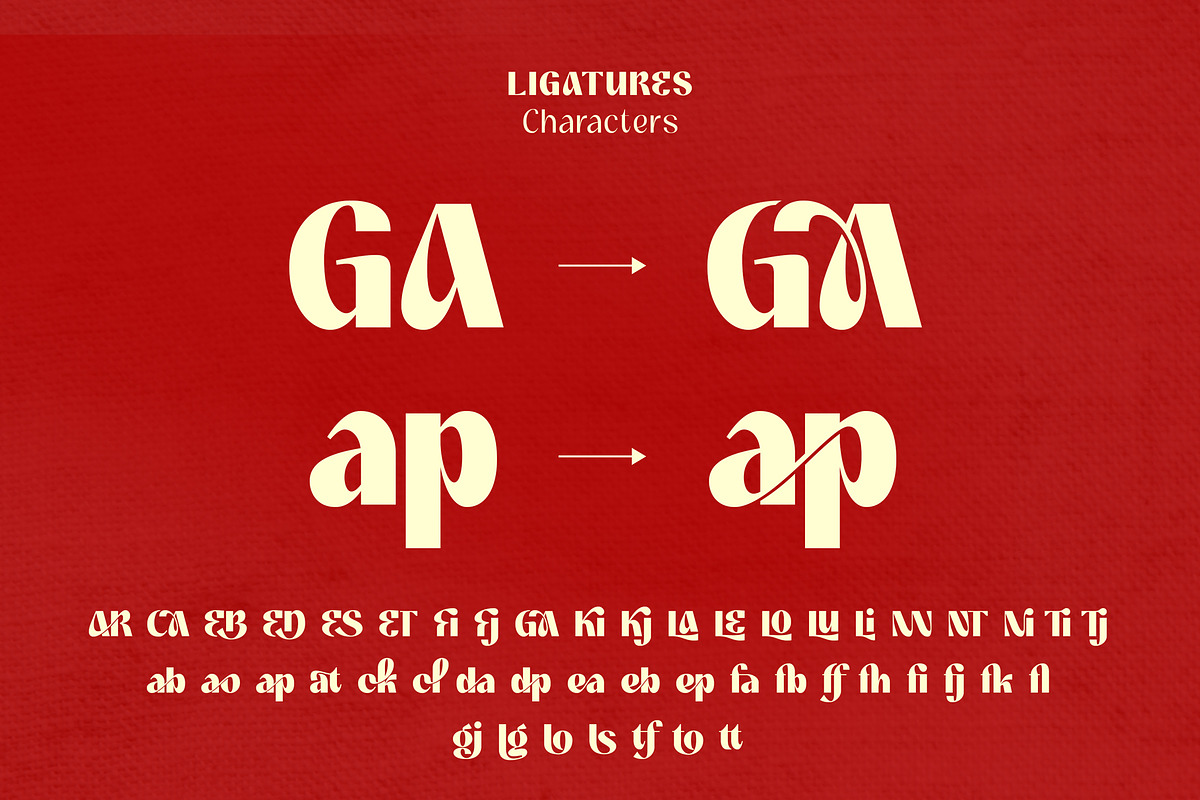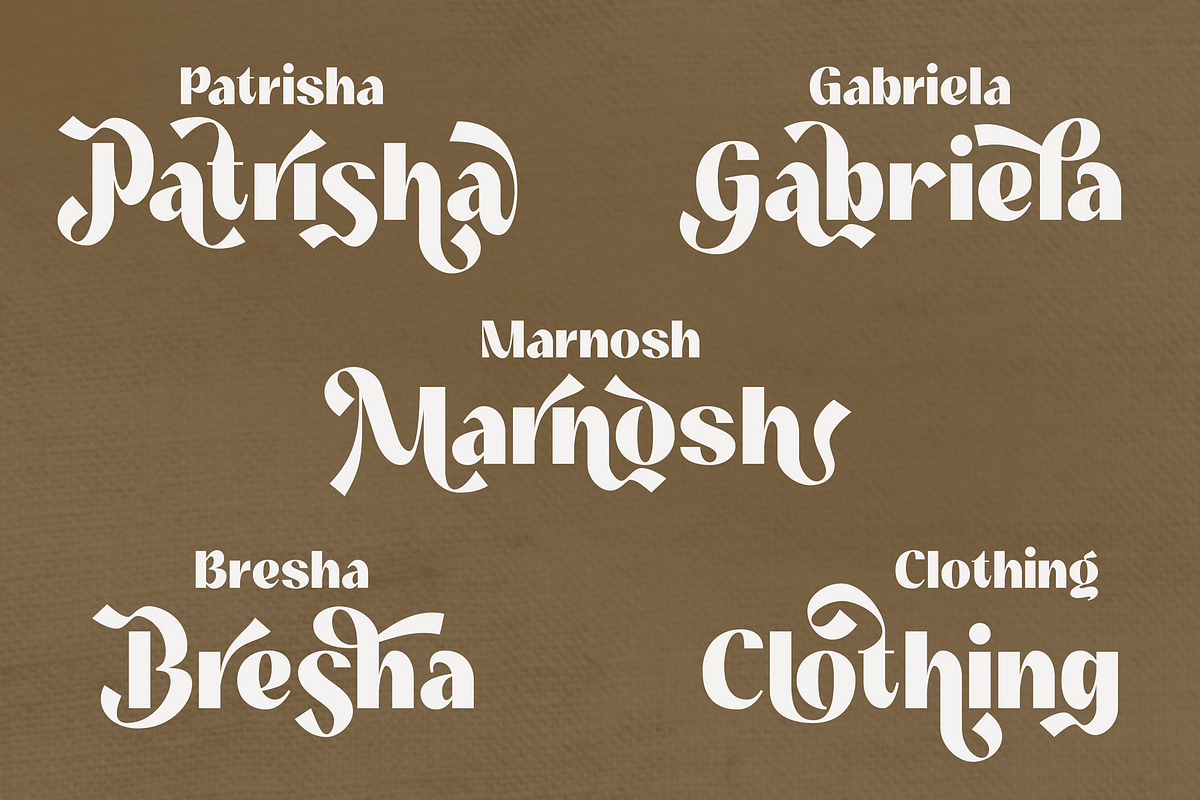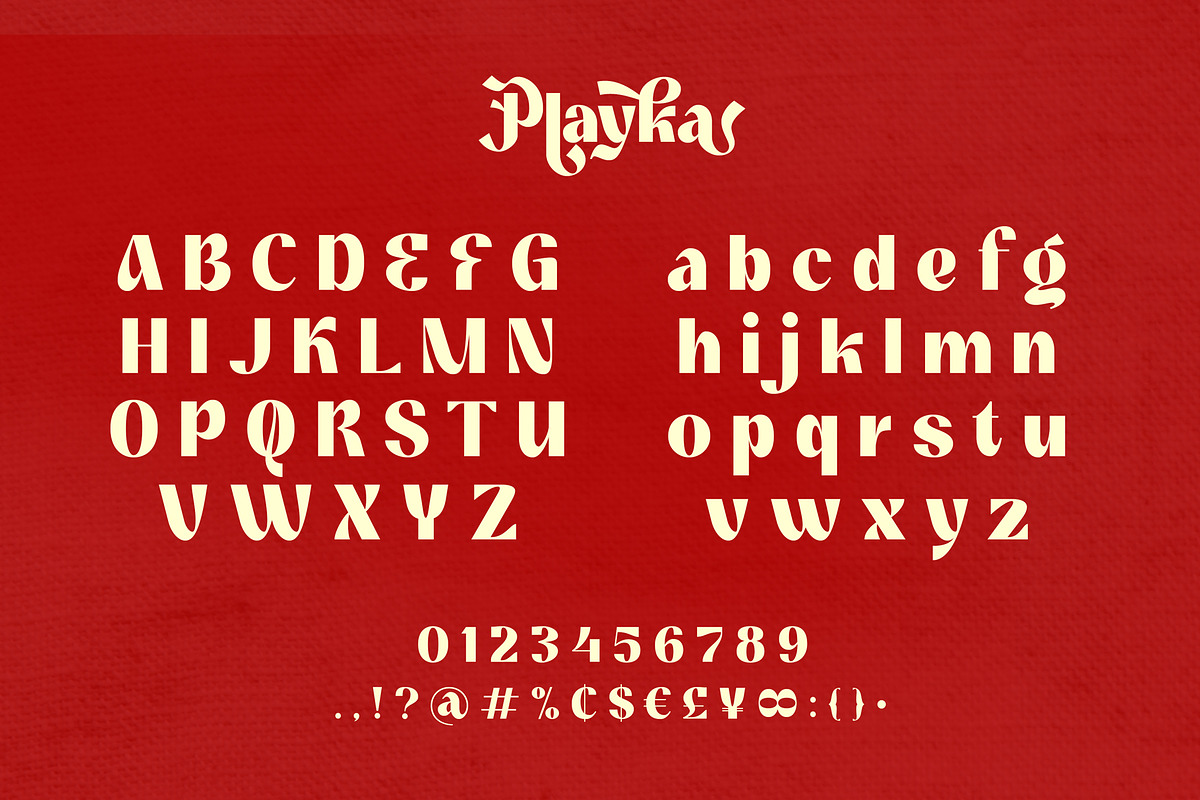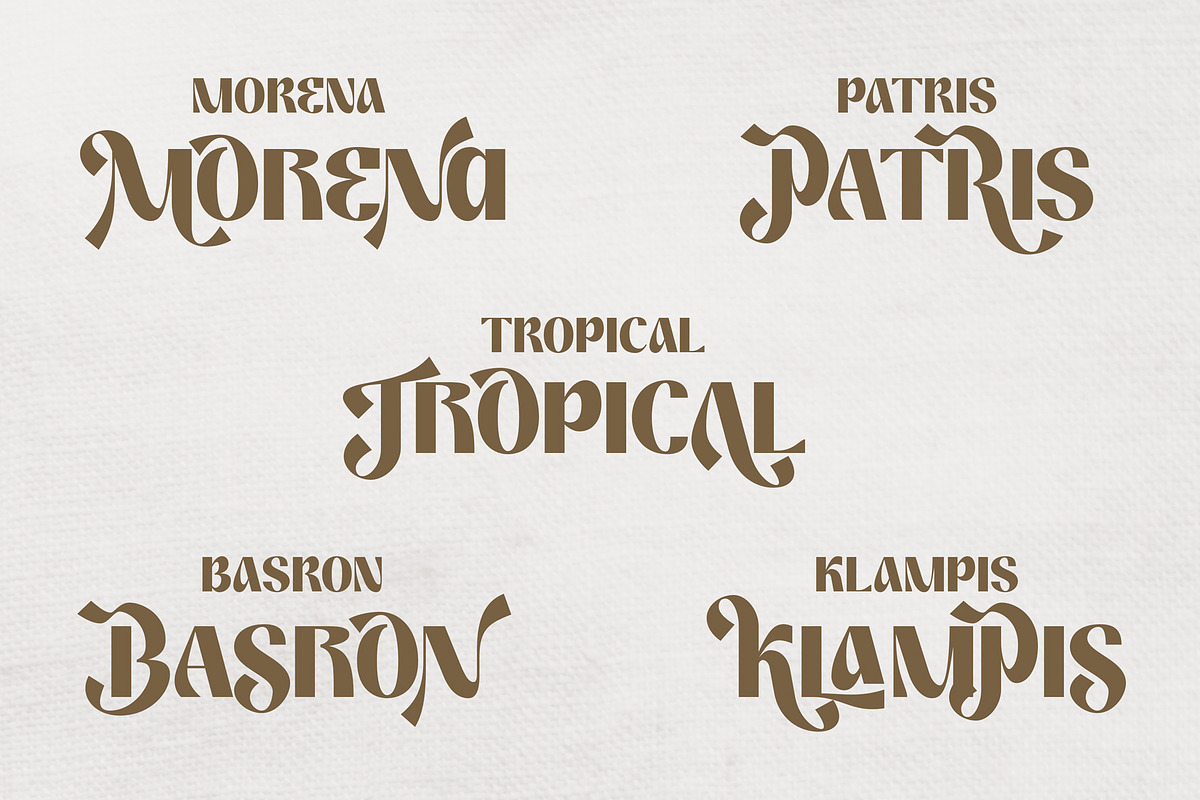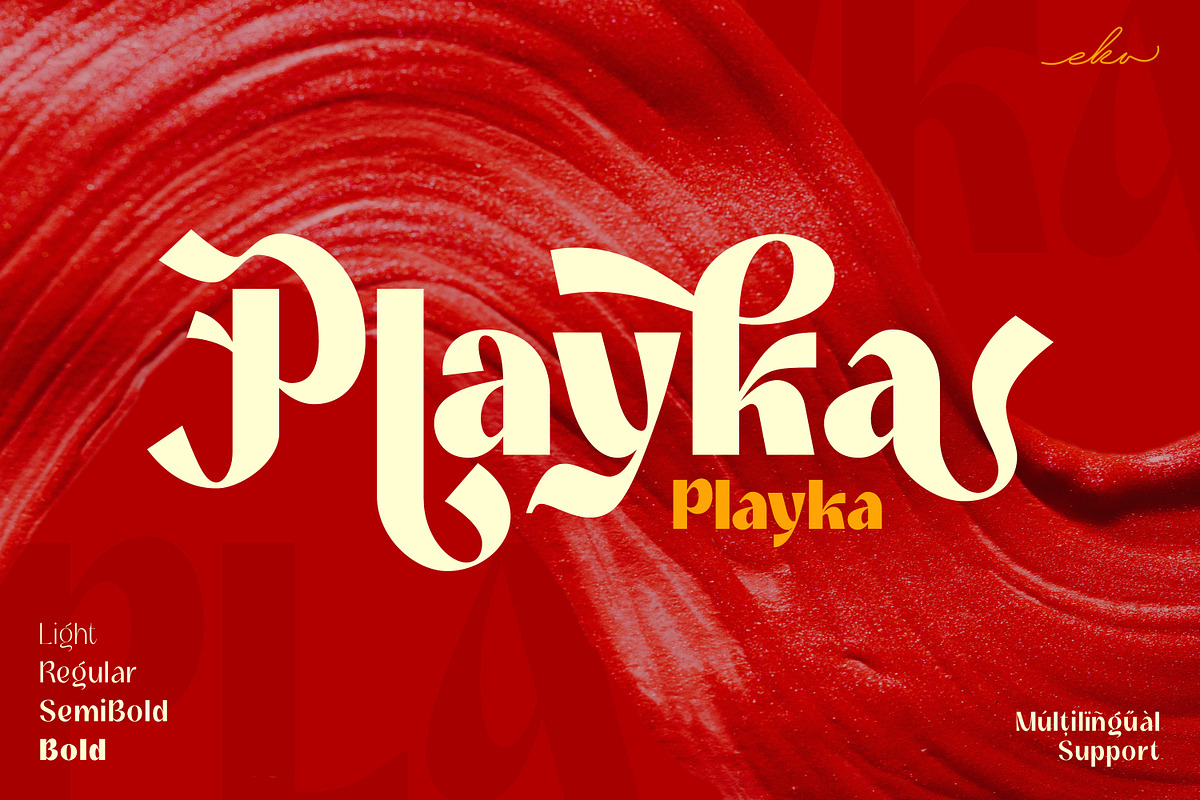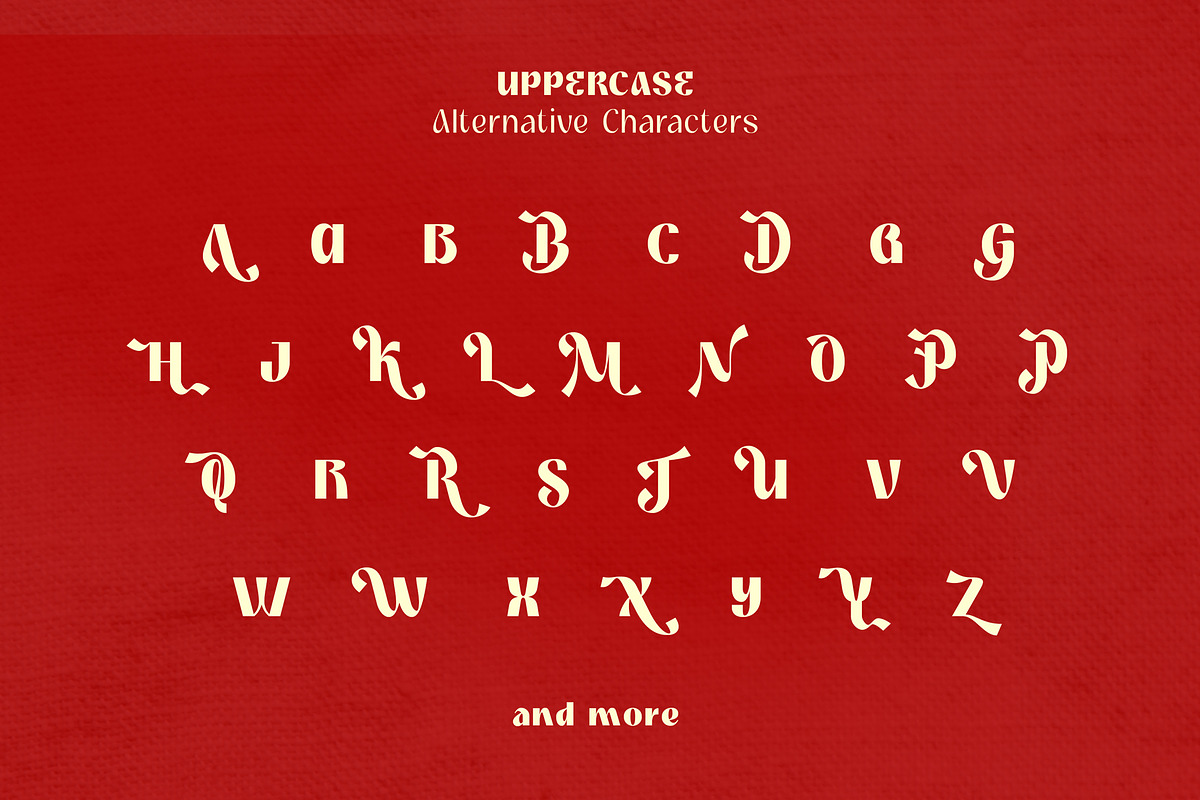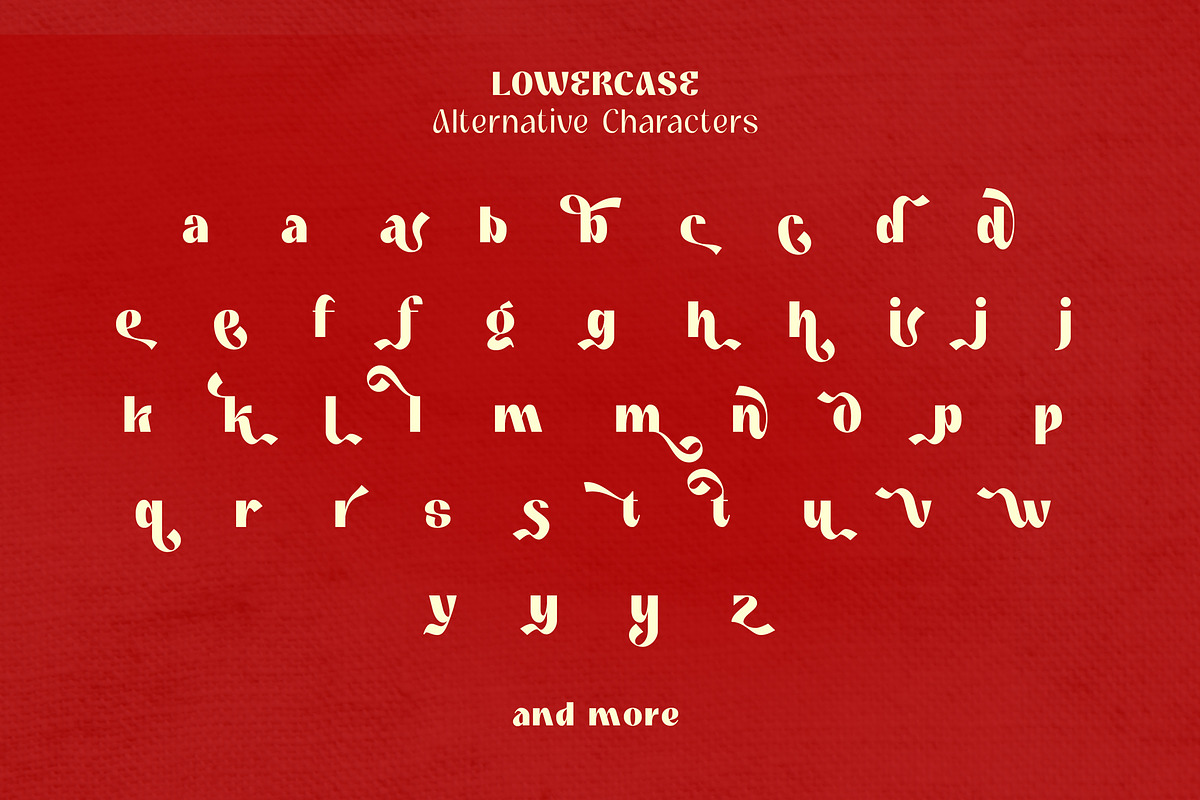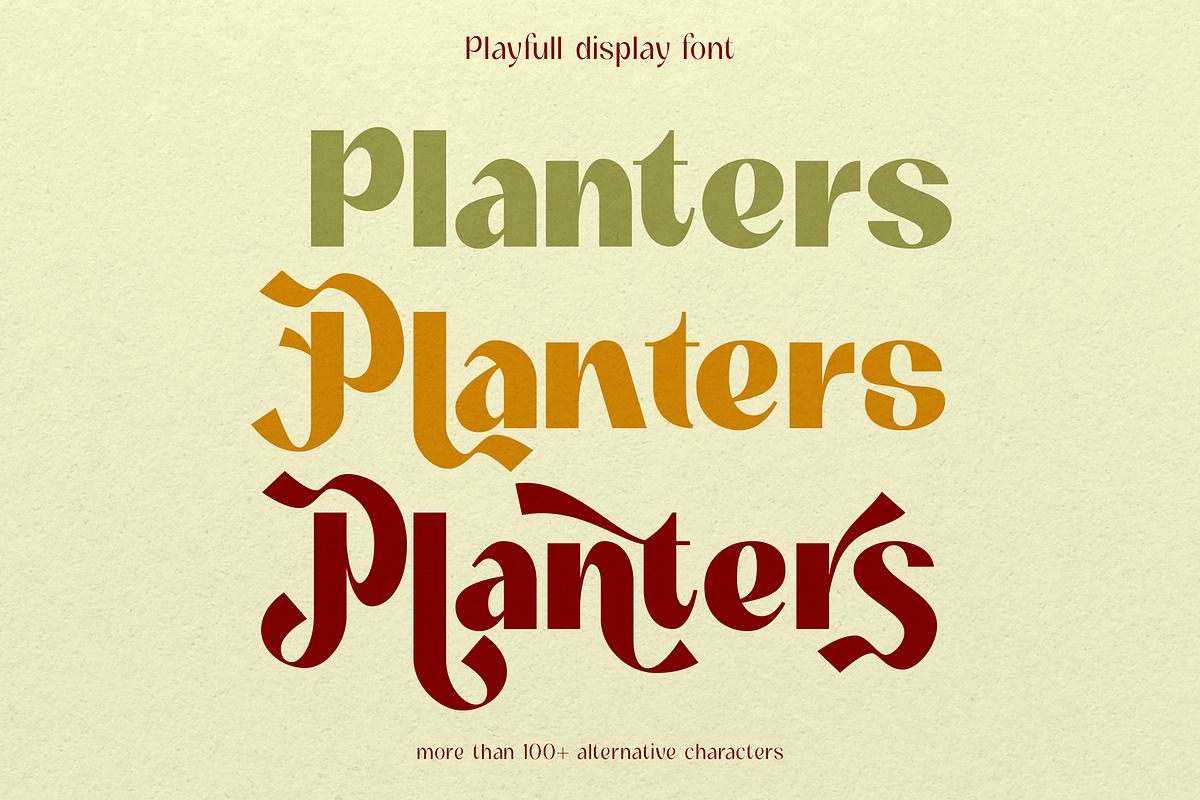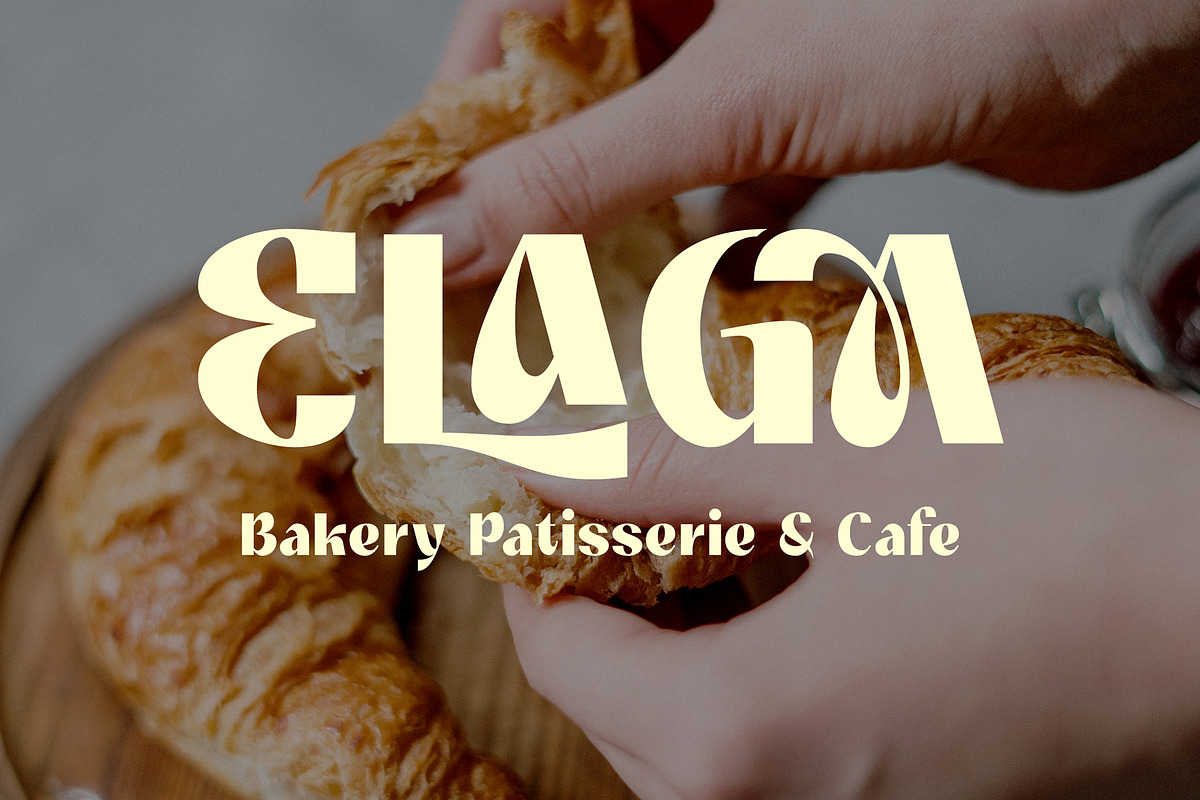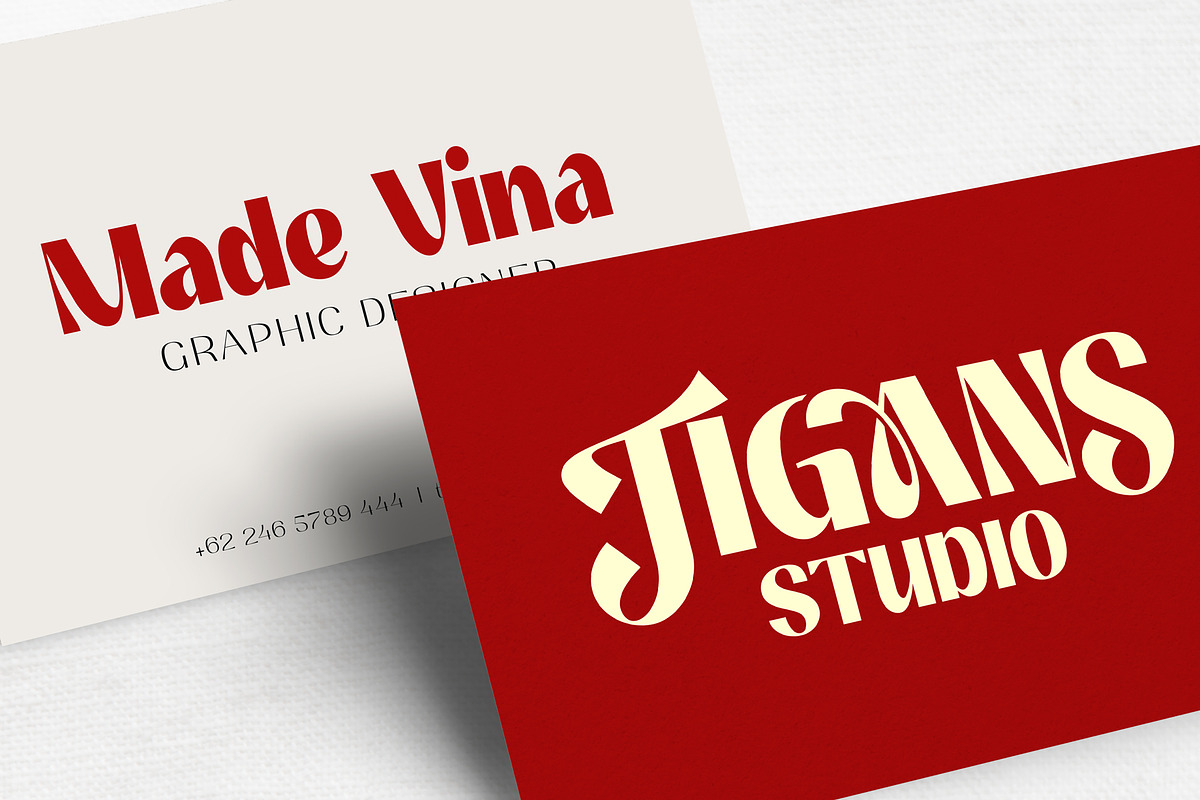
Playka | Unique Display Font
Playka is a playfull display font that comes with unique characters and consists of 4 weights from Light to Bold. Playka includes a lot of alternatives and ligatures characters that are specially designed to make your typography design result looks more unique and attractive. Playka is perfect for many different projects such as logo design, wedding, branding, poster, magazines, labels, merchandise, invitation, presentation, advertising and so much more!
Features : OpenType support, alternative & ligatures characters, multilingual support & PUA Encode